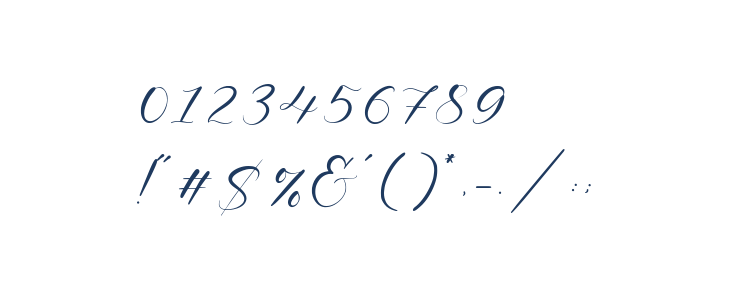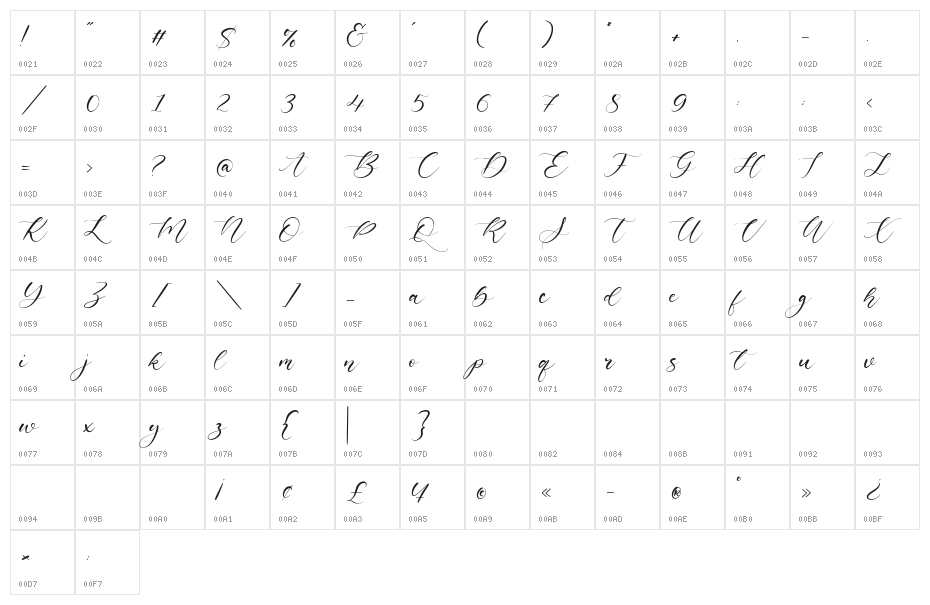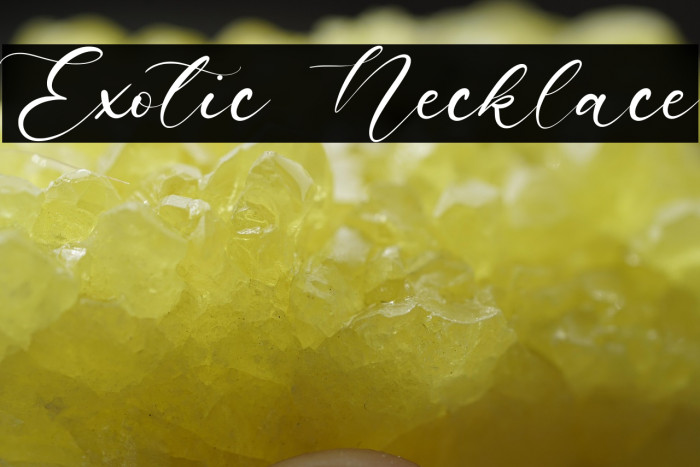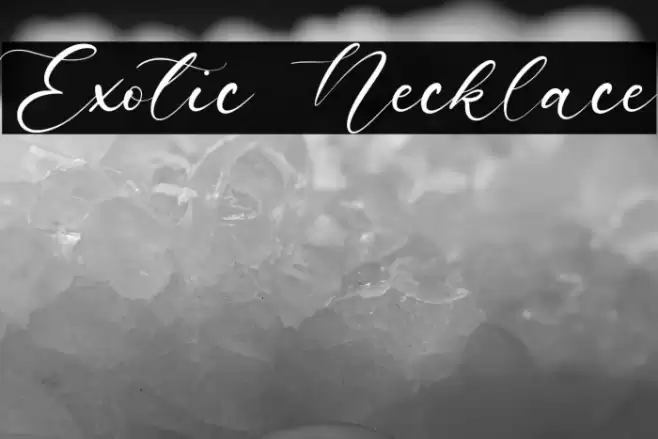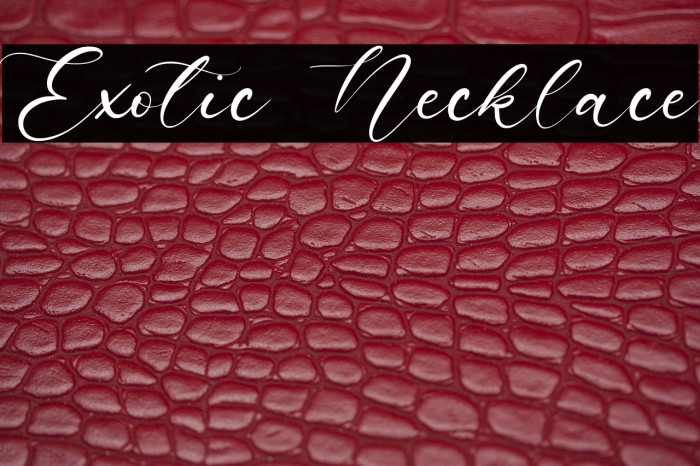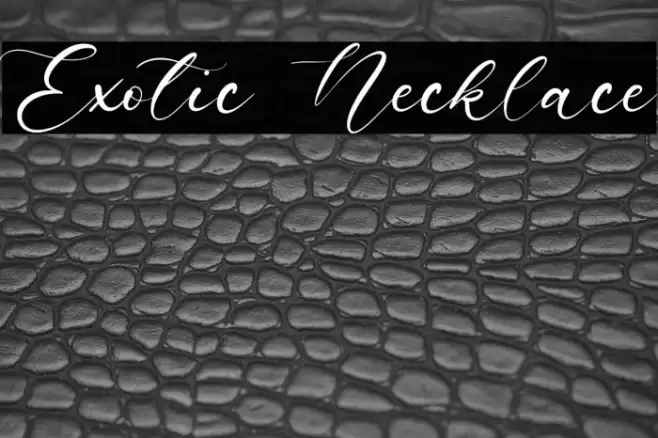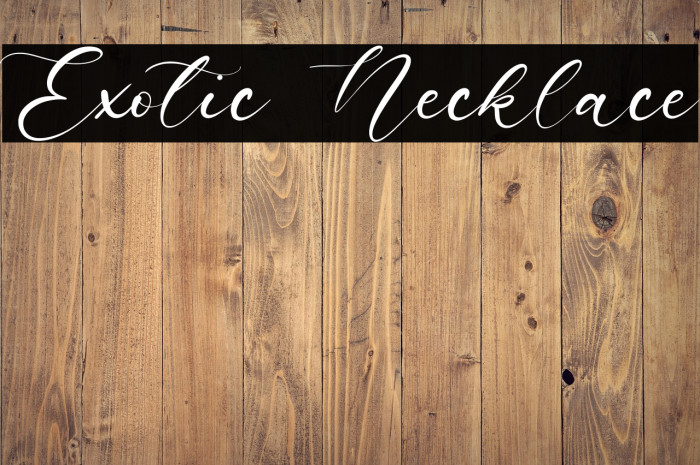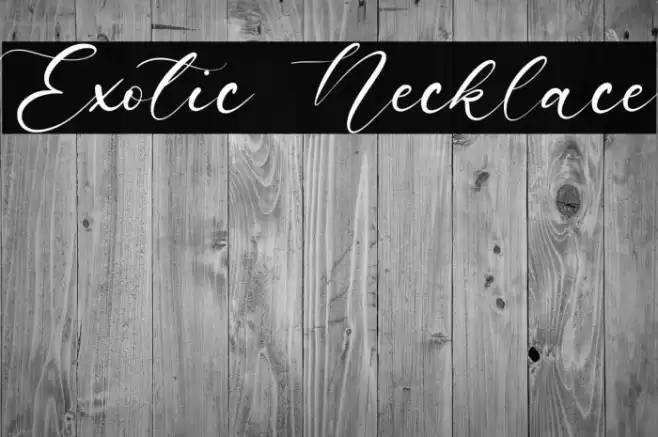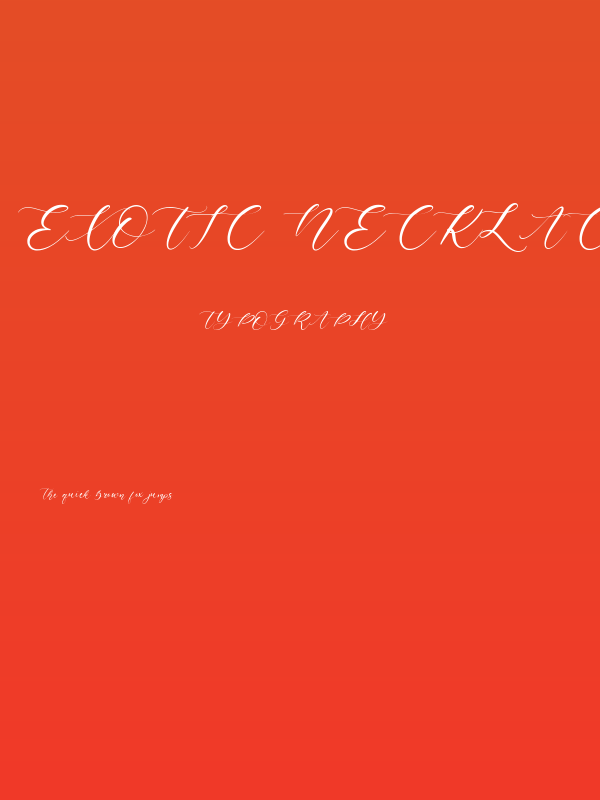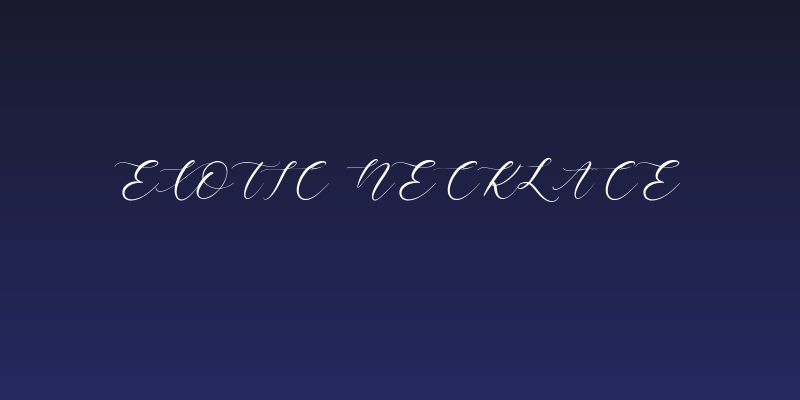
Exotic Necklace Font
Exotic Necklace Description
This elegant script font exudes a sense of sophistication and fluidity, characterized by its graceful, flowing lines and delicate curves. The uppercase letters are ornate and feature intricate loops and swashes, while the lowercase letters maintain a consistent rhythm with their smooth, connected strokes. The numerals are stylishly designed, complementing the overall aesthetic of the font. Special characters are thoughtfully crafted to match the elegance of the alphabet, making this font ideal for projects that require a touch of class and refinement. The font's high contrast between thick and thin strokes adds to its visual appeal, making it stand out in any design.
| Overall Style | Elegant, Sophisticated |
| Proposed Projects | Ideal for wedding invitations, luxury branding, elegant stationery, and high-end product packaging. |